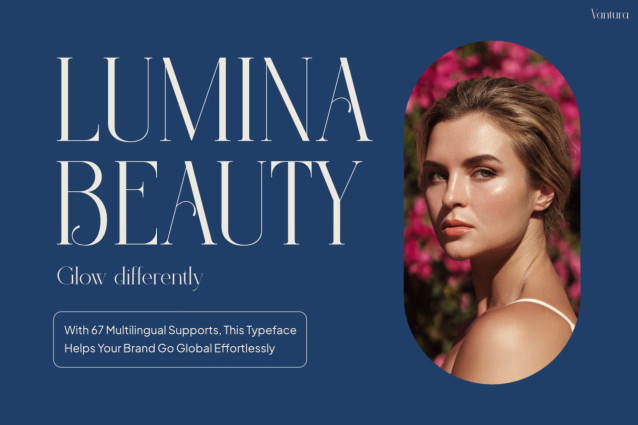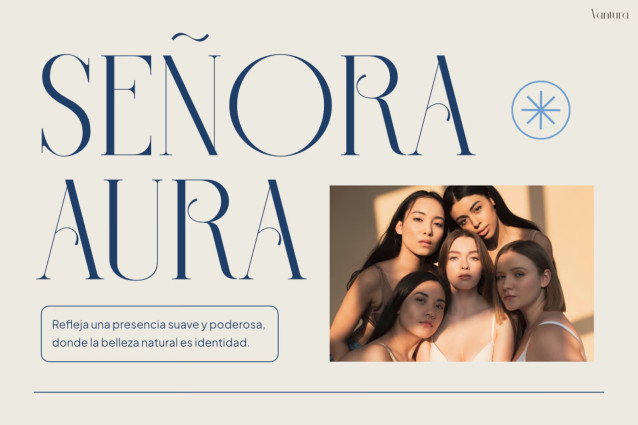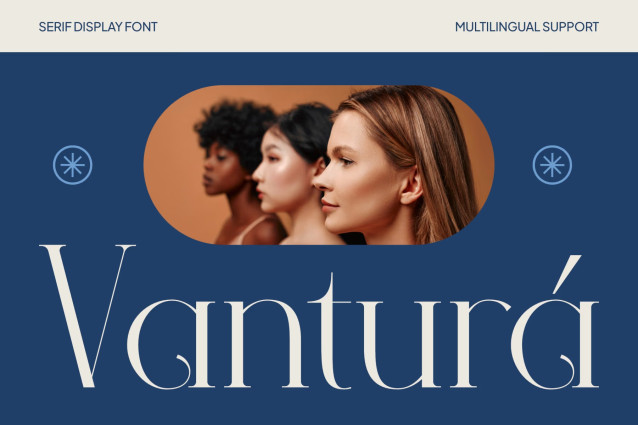
Vantura Font
Vantura brings a refined, high-fashion aesthetic that elevates your visuals with elegance and clarity. Its delicate contrast and graceful curves create a look that feels both modern and timeless. Each letter is crafted with precision, so the font looks clean and stylish in every use. Moreover, the balanced structure makes it easy to read while still feeling premium. Because of its sleek serif style, it naturally stands out in headlines and branding.